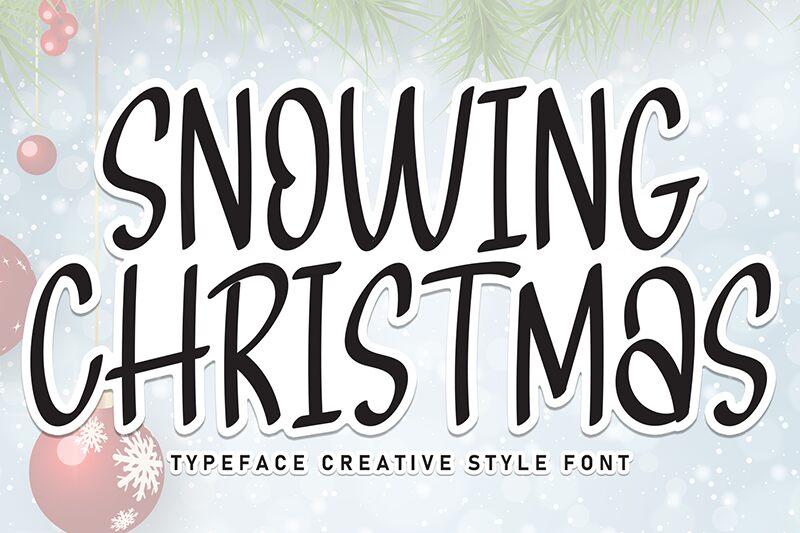
Snowing Christmas
Snowing Christmas font by Andi Moz is a free brush typeface that captures the scribbled excitement of the holidays. Tall, narrow letters sway slightly, like hand-painted strokes on frosted glass, while chunky ink textures give each word a cozy, handmade feel. The subtle irregularities make it look like it was brushed quickly on a shop window just before the snow started falling.
Using Snowing Christmas, you can bring that festive energy to greeting cards, gift tags, party invitations, advent calendars, web banners, and seasonal social posts. This free font shines on large titles and short phrases where its loose rhythm can breathe. For a balanced look, pair it with a simple geometric sans serif at smaller sizes to keep your layouts readable but still full of winter charm.